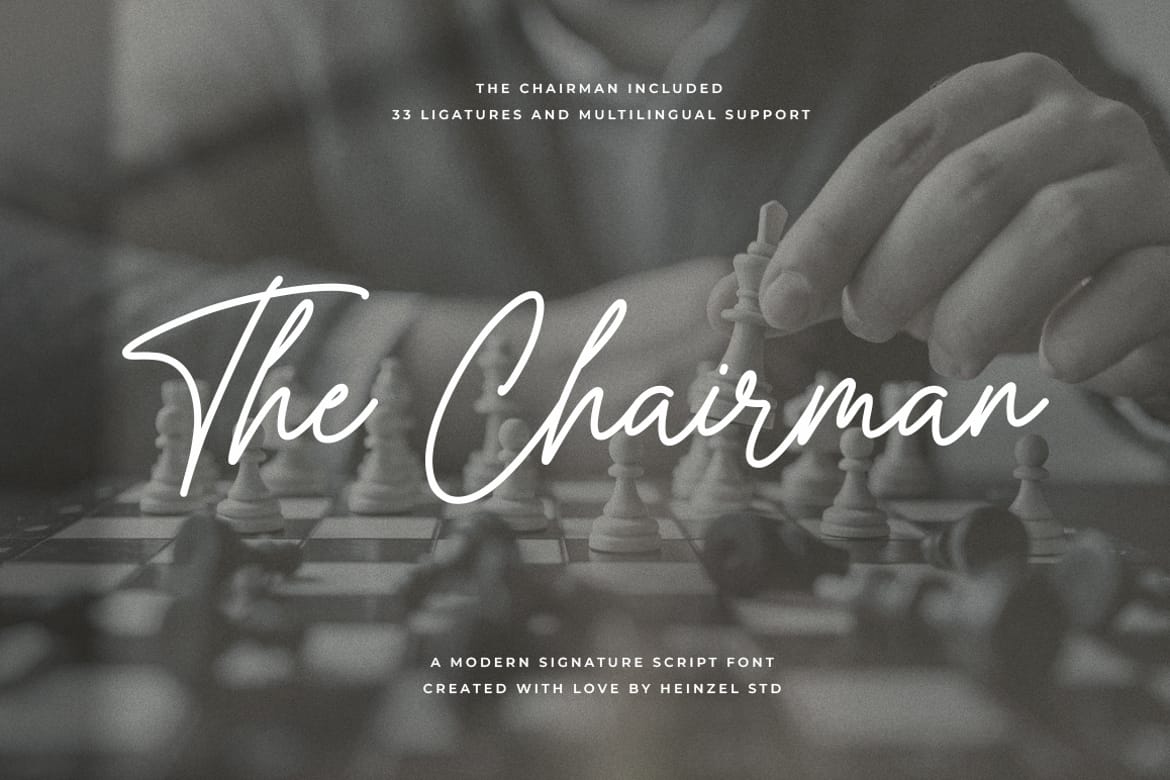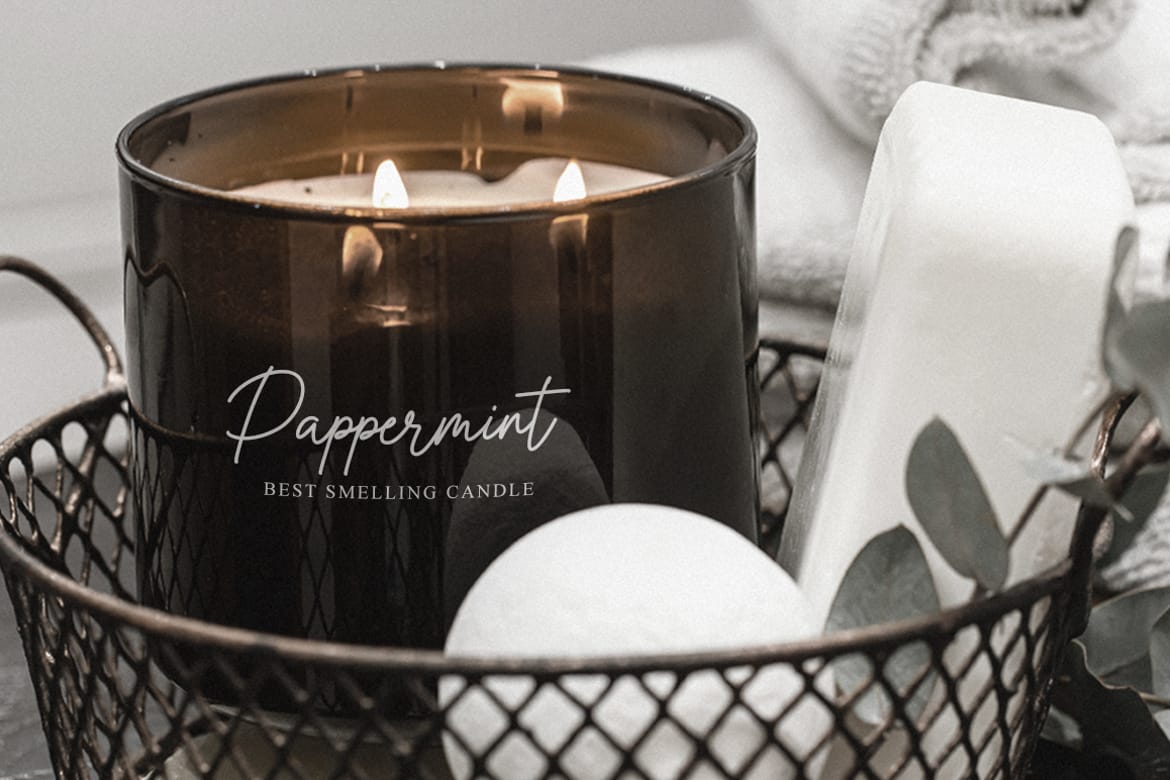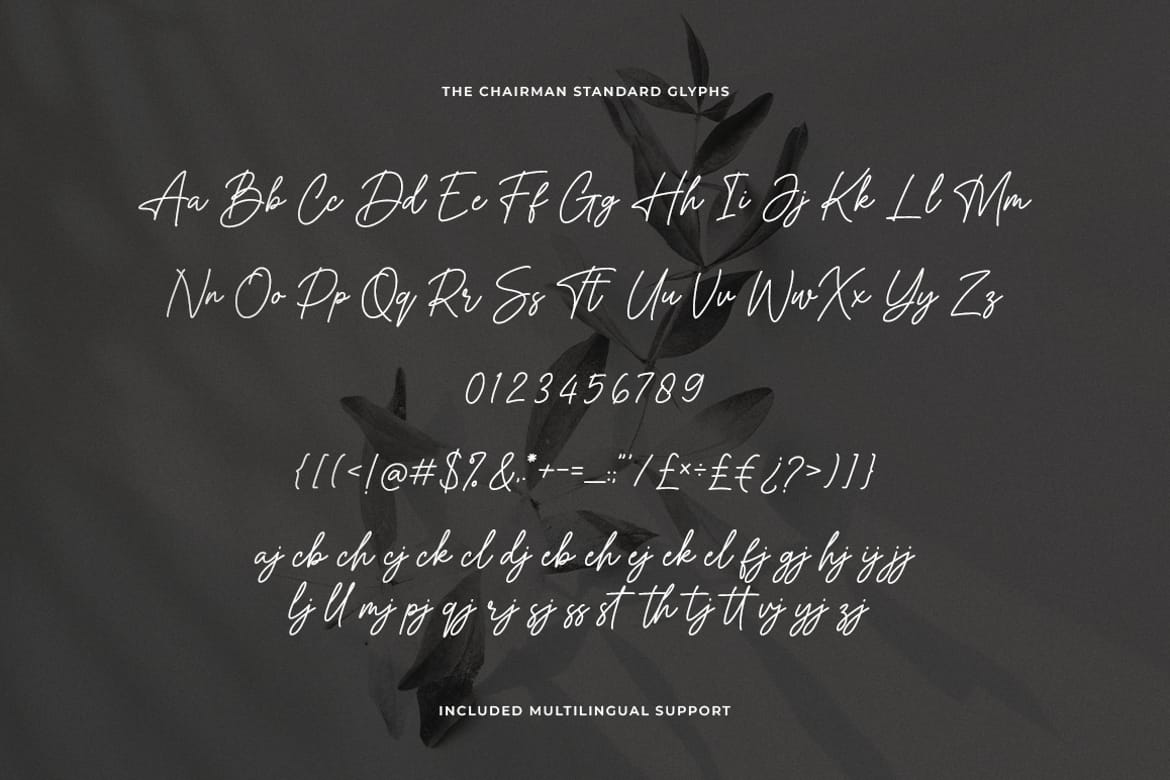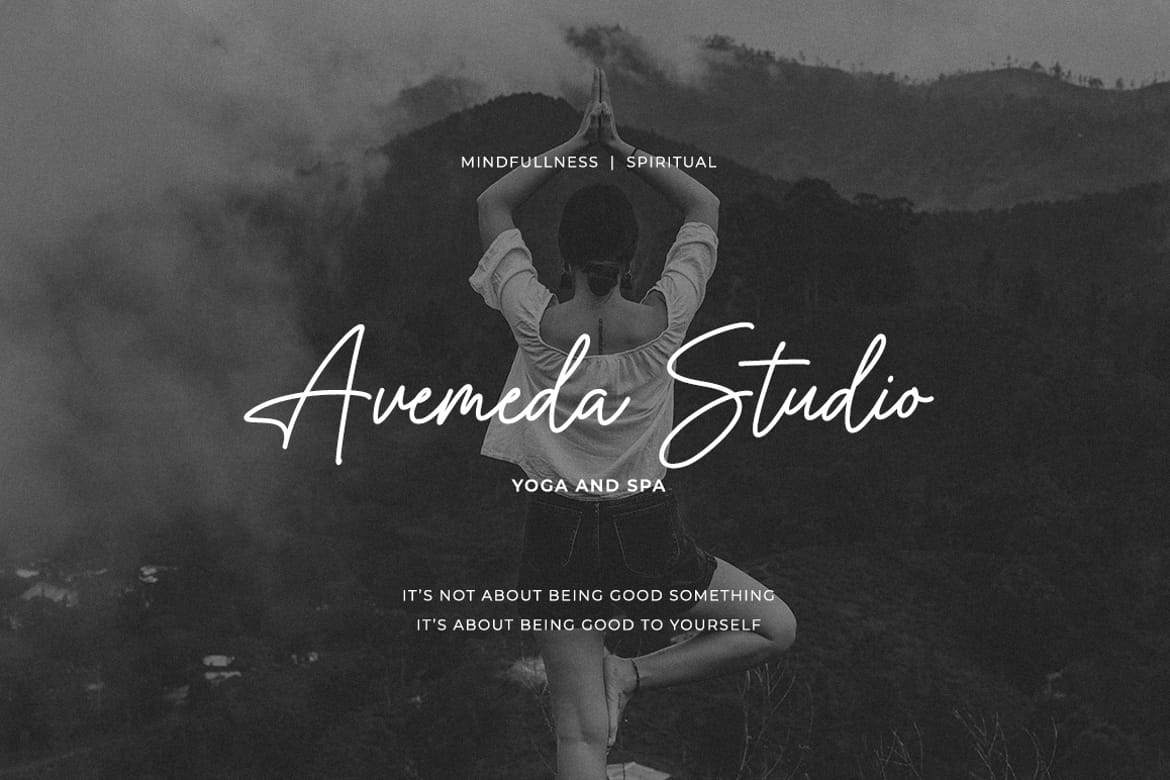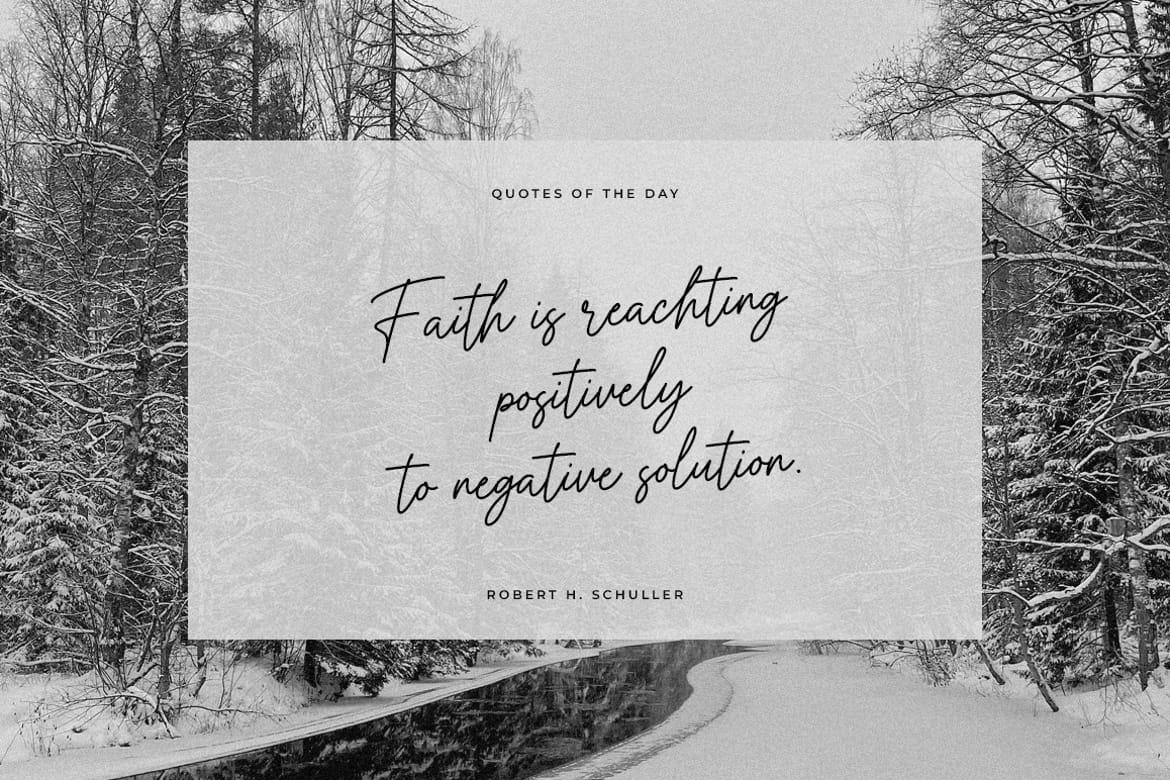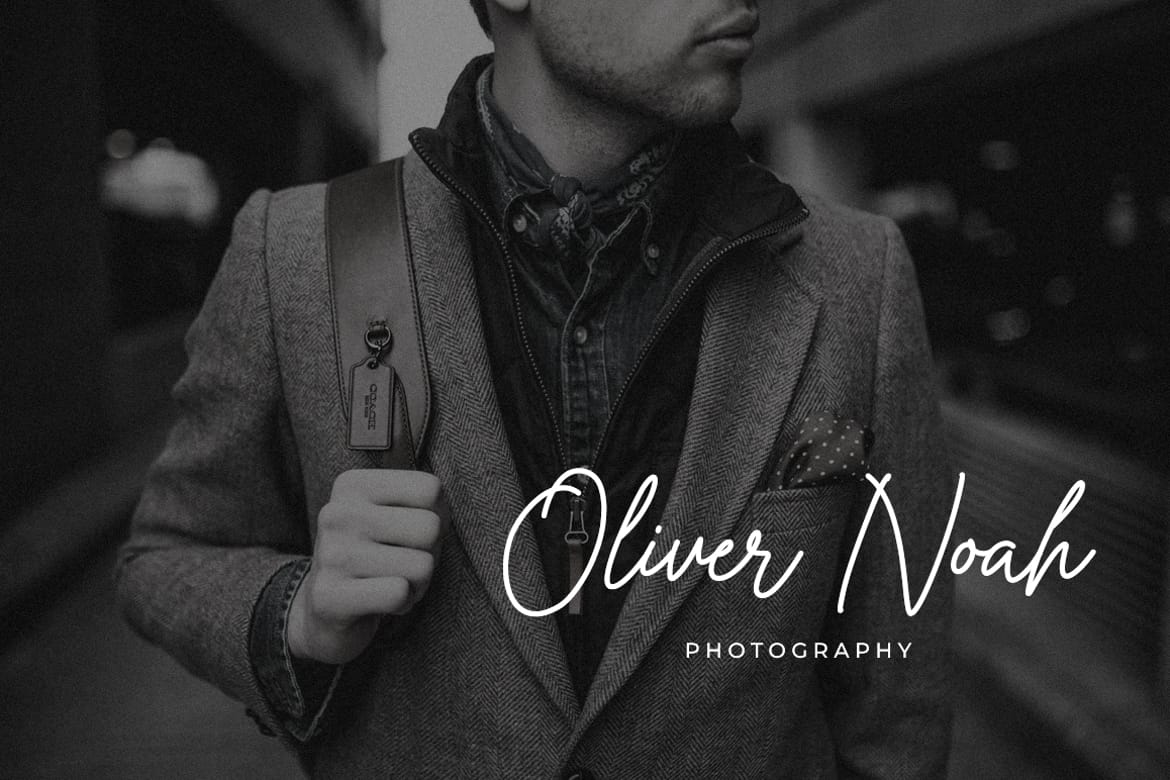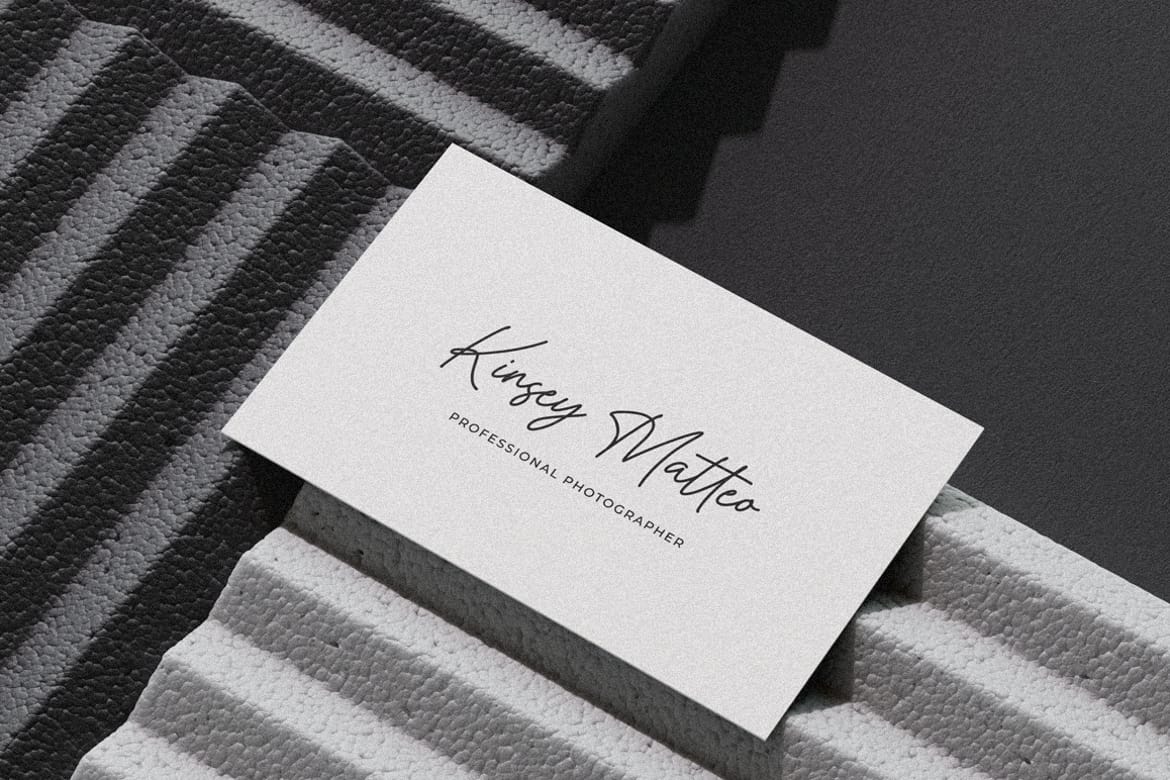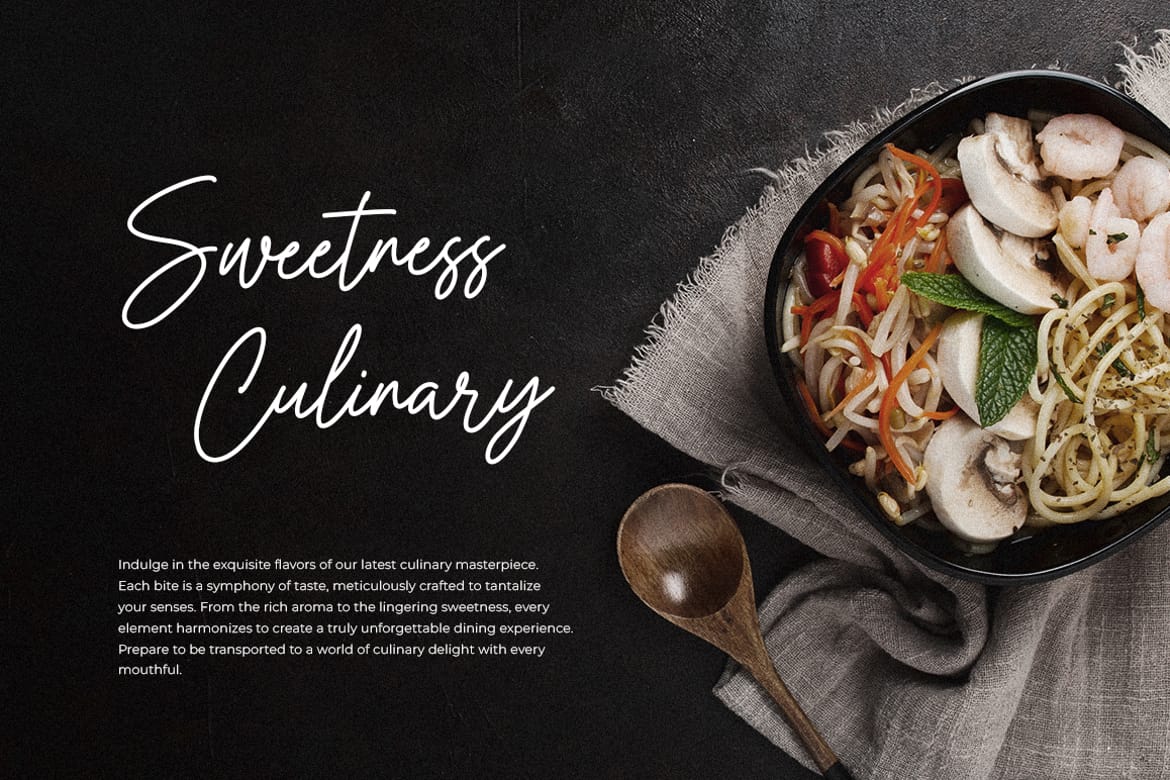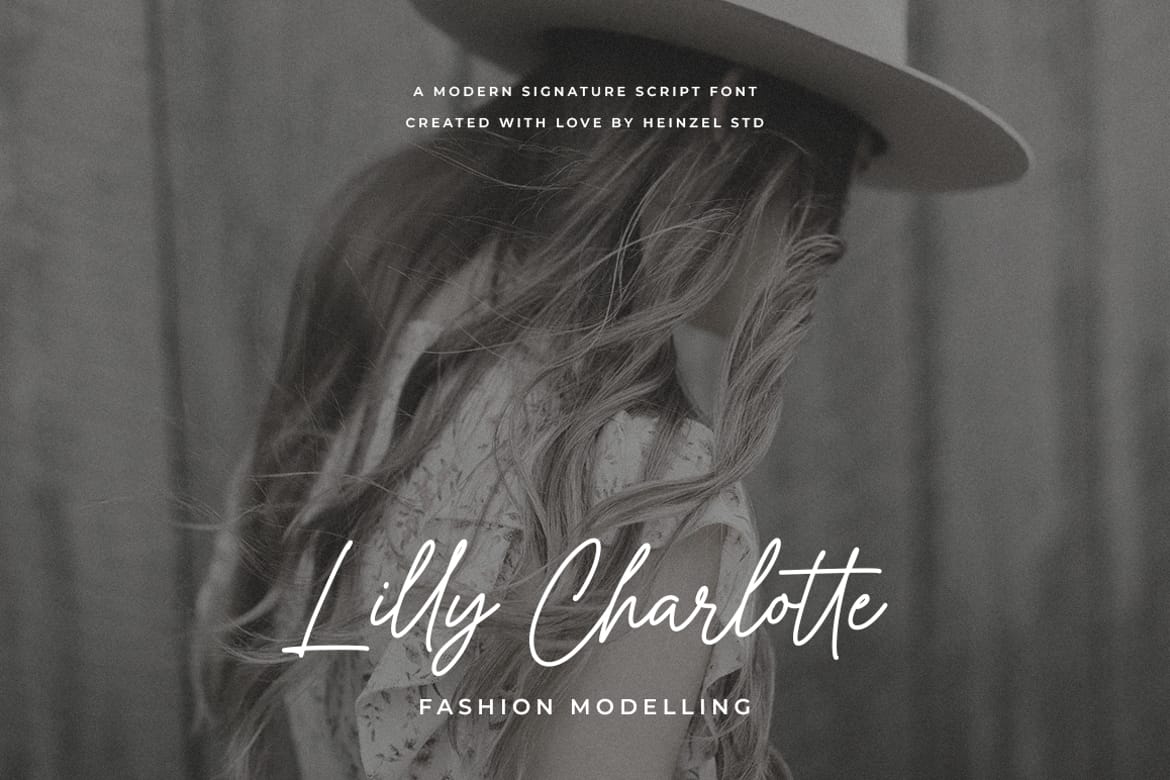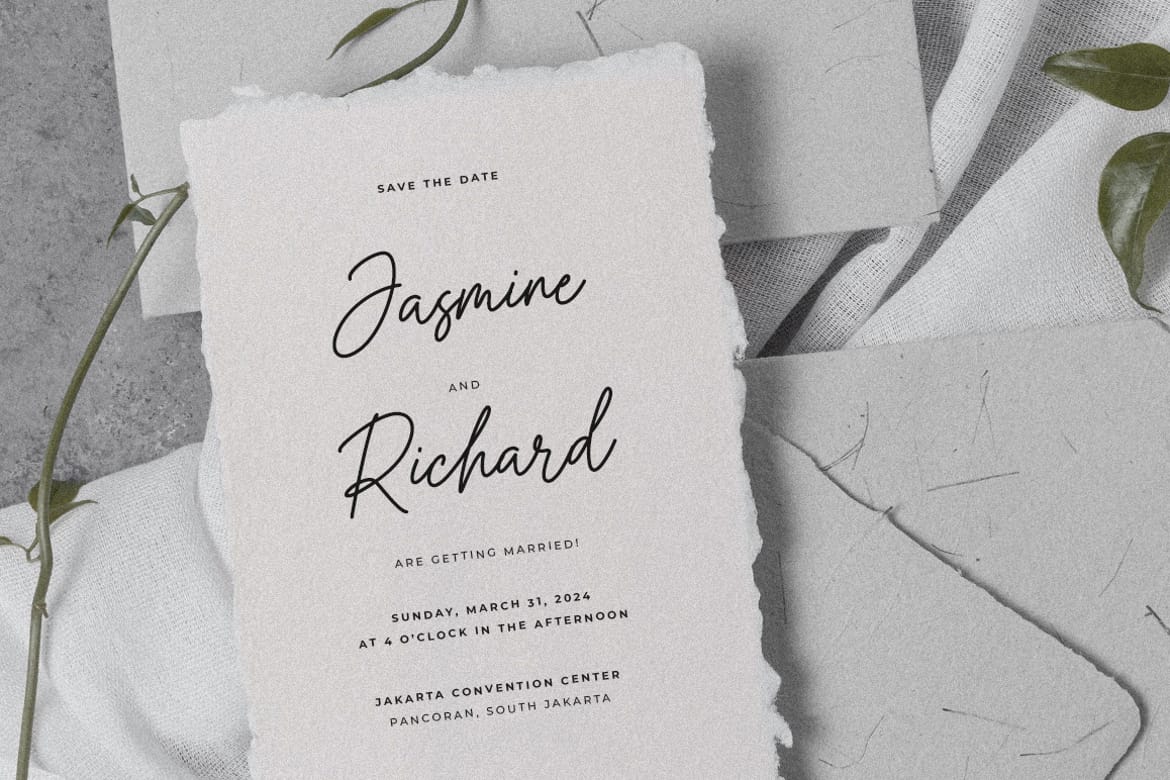
The Chairman Signature Script Font
The Chairman is a modern signature script font designed to bring elegance, confidence, and authenticity to your creative projects. Inspired by natural handwritten signatures, this font features smooth flowing strokes, graceful curves, and refined letterforms that create a luxurious and professional appearance. Whether you're designing premium branding materials, wedding invitations, fashion campaigns, social media content, or business logos, The Chairman delivers a sophisticated handwritten touch that feels both personal and exclusive.